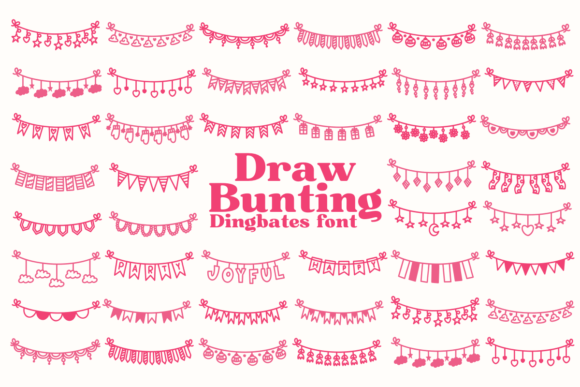
Unleash Your Creativity with the Draw Bunting Font
Have you ever stared at a blank sheet of paper, feeling like your creative juices are stuck in neutral? You know, that moment when you’re itching to create something special, but you’re not sure where to start. For designers, crafters, and DIY enthusiasts, those moments can be a real challenge.
That’s where the Draw Bunting Font comes in – a delightful dingbats font that’s perfect for adding a touch of whimsy to your creative projects. With its sketch-style design, this font is ideal for wedding invitations, DIY crafts, decorations, logos, and so much more. Whether you’re a seasoned designer or a crafty beginner, the Draw Bunting Font is a valuable addition to your toolkit, allowing you to bring your unique vision to life.
- Unique Characteristics: The Draw Bunting Font features a distressed, hand-drawn aesthetic with intricate details and textures, giving it a unique and eye-catching appearance.
Draw Bunting Font Review
Overall, I think the Draw Bunting Font is a charming and whimsical addition to any design project. ✨ It’s perfect for creating a festive atmosphere, especially during holidays or special events. The font’s hand-drawn style gives it a personal touch that’s hard to find in more generic fonts.
Some of the things that work well about the Draw Bunting Font include:
- Its versatility – it can be used for a wide range of projects, from invitations to party decorations.
- The font’s unique, hand-drawn style that adds a personal touch to any design.
- The font’s large character set, which includes uppercase and lowercase letters, numbers, and punctuation marks.
However, there are some limitations to the Draw Bunting Font that I wanted to mention:
- The font may not be suitable for formal or professional projects, as it has a more playful and casual feel.
- The font’s hand-drawn style can sometimes make it difficult to read, especially at smaller font sizes.
Overall, I think the Draw Bunting Font is a great addition to any design library, but it’s not a one-size-fits-all solution. It’s best used for projects where you want to add a touch of whimsy and personality.
Use the Draw Bunting Font to add a playful and whimsical touch to your designs. Experiment with different font sizes and colors to create a visually appealing effect. Consider combining the font with other design elements, such as illustrations or graphics, to add depth and interest to your design.
The Draw Bunting Font is perfect for creating festive and celebratory designs, such as birthday invitations, party decorations, and holiday cards. It’s also great for adding a touch of whimsy to branding materials, such as business cards and logos.